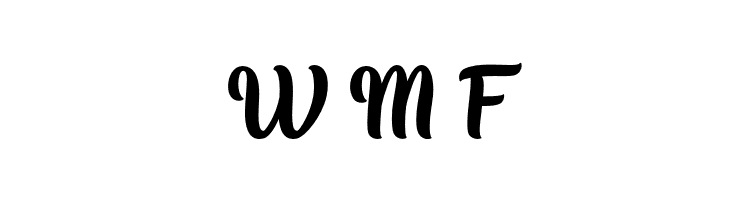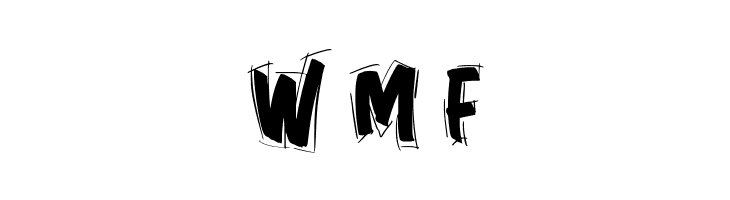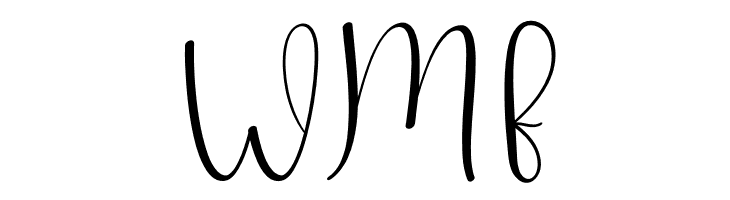
A playful, handwritten font with elegant loops and curls.
A bold, playful script font with a handwritten style.
A bold, italic font with high contrast and a retro, dynamic style.
A bold, retro-inspired font with sharp serifs and a commanding presence.
A dynamic, fluid handwritten script with elegant, sweeping curves.
A graceful, italic script font with high contrast and flowing connections.
A charming and elegant script font with fluid, connected letterforms.
A charming, elegant handwritten font with fluid, cursive letterforms.
A flowing, elegant script font with connected, cursive characters.
A whimsical, handwritten font with a playful and modern style.
A playful, handwritten font with elongated, whimsical characters.
A bold, playful script font with a handwritten feel.
A fluid, cursive handwritten font with elegant, interconnected letters.
A bold, dynamic brush script font with expressive strokes.
A playful and elegant script font with a handwritten style.
A bold, hand-painted style font with a textured, artistic appearance.
A bold, playful font with rounded, bubbly characters.
A modern, elegant script font with flowing curves and graceful loops.
A playful, handwritten font with rounded, consistent strokes and good readability.
A playful, rounded font with smooth curves and a friendly appearance.
A playful, handwritten font with tall, narrow letters and smooth curves.
A playful, handwritten font with smooth, rounded edges and a casual style.
A bold, sketch-style font with a hand-drawn, artistic appearance.
A playful, bold font with a hand-drawn, whimsical style.
A playful, handwritten font with a lively and informal style.
A lively and flowing script font with smooth, cursive strokes.
Casual handwritten font with a playful style.
Playful handwritten font with a casual style.
Decorative script font with a whimsical, handwritten style.
A modern decorative font with tall, narrow characters.
Playful, rounded sans-serif with a handwritten style.
Tall, playful handwritten script with consistent stroke width.
A diverse collection of bold, graphic symbols with cultural and geometric designs.